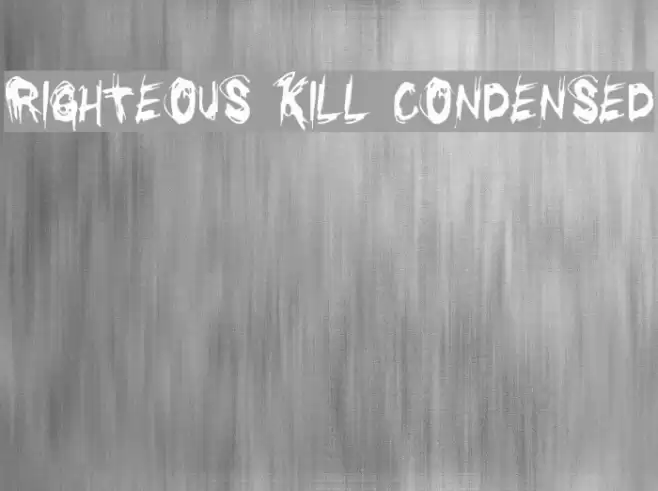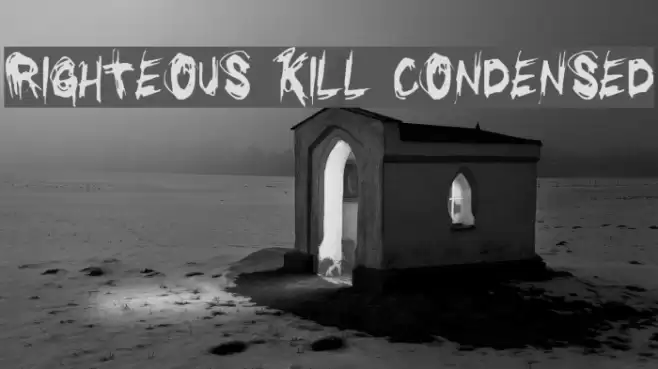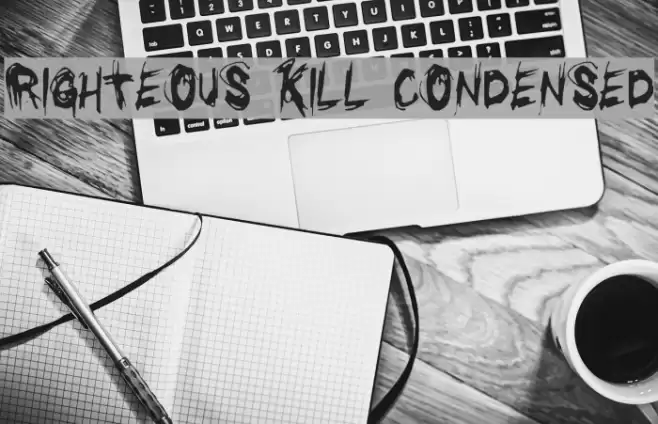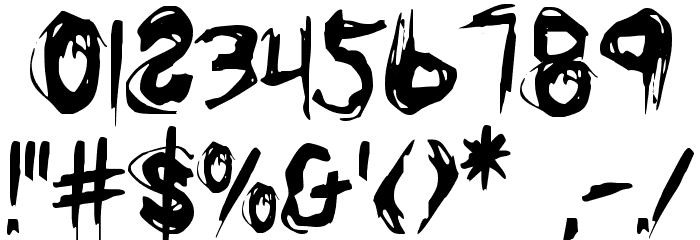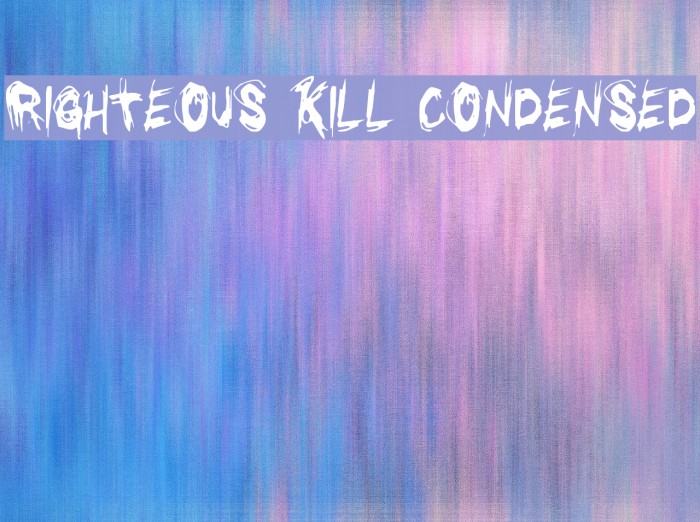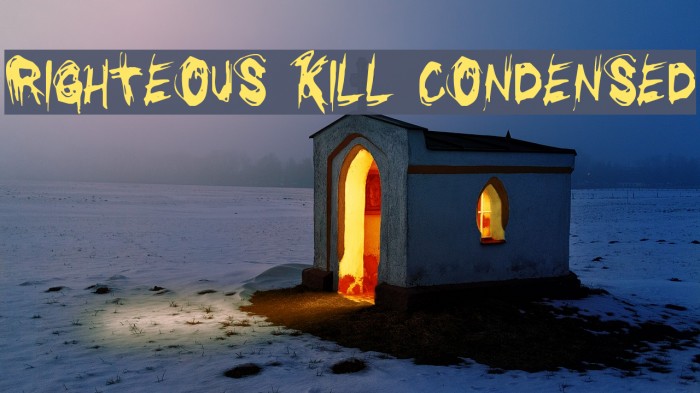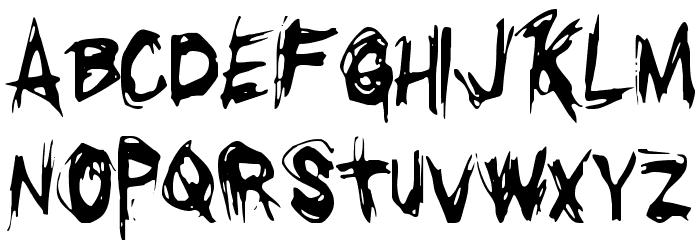
Righteous Kill Condensed Font
Righteous Kill Condensed Description
This font features a bold, distressed style with jagged edges and a hand-drawn appearance, giving it a chaotic and energetic feel. The characters are irregular, with varying thickness and a slightly condensed form, creating a sense of urgency and movement. The uppercase and lowercase letters maintain a consistent style, while the numbers and special characters are equally dynamic, adding to the overall edgy aesthetic. This font is perfect for projects that require a dramatic and impactful visual presence.
A bold, distressed font with jagged edges and a hand-drawn, chaotic style from Uncategorized fonts.
- Proposed Projects: Ideal for horror movie posters, Halloween event flyers, edgy album covers, and rebellious fashion branding.
- Use Case: Headlines, Posters, Branding